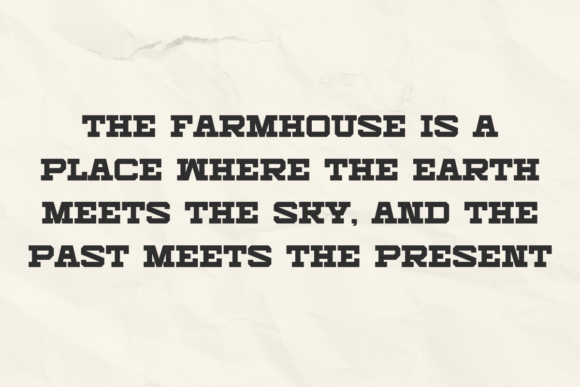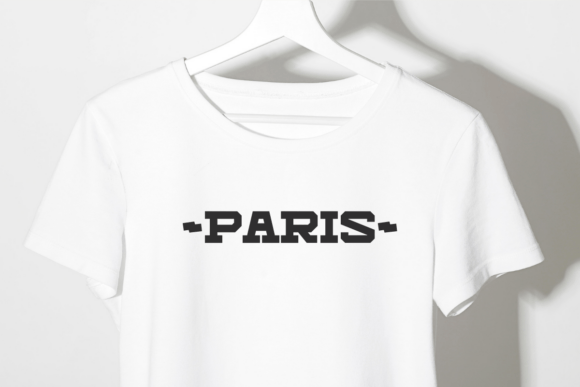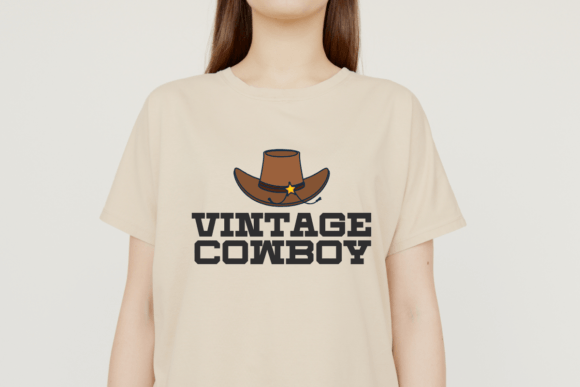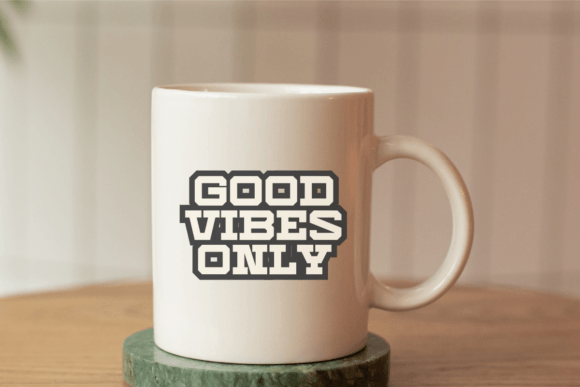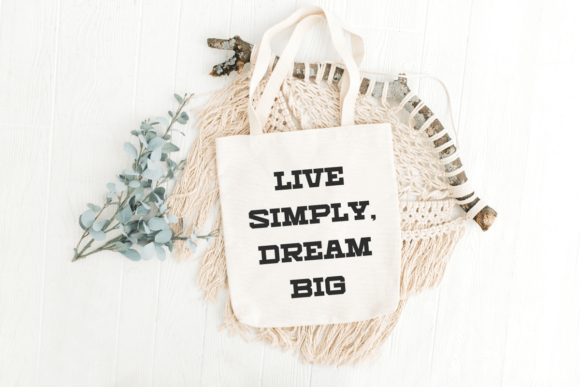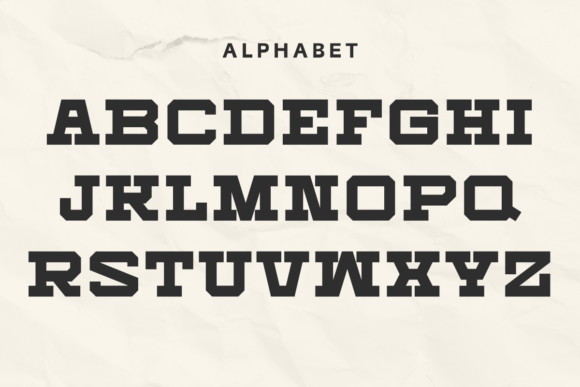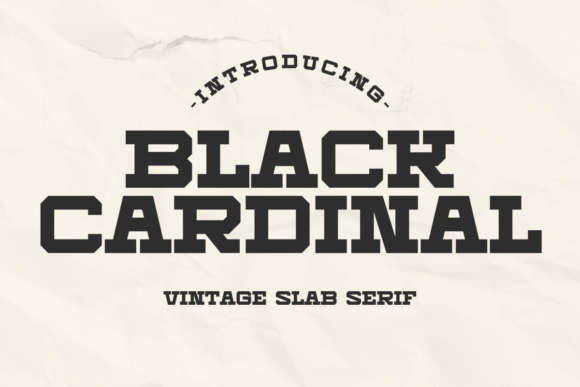
The Ultimate Guide to Black Cardinal Font: A Bold and Vintage Slab Serif
As a designer, I’ve had my fair share of struggles when it comes to finding the perfect font for a project. I recall working on a Black Friday sale poster for a client, and I was determined to create something that would grab attention. That’s when I stumbled upon the Black Cardinal font. Its bold and vintage slab serif design immediately caught my eye, and I knew I had to learn more about it.
What Makes Black Cardinal Font So Special?
Black Cardinal is a bold and vintage slab serif font that draws inspiration from the contrasting themes of Black Friday and Christmas. Its thick strokes and distinctive serifs create a striking and eye-catching design that’s perfect for a variety of projects, from quotes and posters to movie titles, t-shirts, mugs, tumblers, and stickers.
Here’s what I love about Black Cardinal font:
• Bold and eye-catching design: The font’s thick strokes and distinctive serifs make it perfect for creating attention-grabbing designs.
• Versatile: Black Cardinal font is suitable for a wide range of topics, including cardinal, 3D skinny tumbler, Halloween, funky, baby milestones, Buddhist, March, mini calendar, teacher, basketball, and football.
• 🎉 Fun and playful vibe: The font’s vintage design gives it a fun and playful vibe that’s perfect for creating unique and creative designs.
And here are some small quirks or limitations:
• 🤔 Limited use in body text: Due to its bold design, Black Cardinal font may not be the best choice for body text, especially for longer paragraphs.
• ⚠️ May not be suitable for all audiences: The font’s bold and playful design may not be suitable for more formal or professional projects.
The Designer Inspiration Behind Black Cardinal Font
The story behind Black Cardinal font is one of creativity and inspiration. The font’s designer was inspired by the contrasting themes of Black Friday and Christmas, and wanted to create a font that would capture the essence of both. The result is a bold and vintage slab serif font that’s perfect for creating attention-grabbing designs.
What is Black Cardinal font? Black Cardinal font is a bold and vintage slab serif font inspired by the contrasting themes of Black Friday and Christmas.
What can I use Black Cardinal font for? Black Cardinal font is perfect for quotes, posters, movie titles, t-shirts, mugs, tumblers, and stickers, as well as various topics such as cardinal, 3D skinny tumbler, Halloween, funky, baby milestones, Buddhist, March, mini calendar, teacher, basketball, and football.